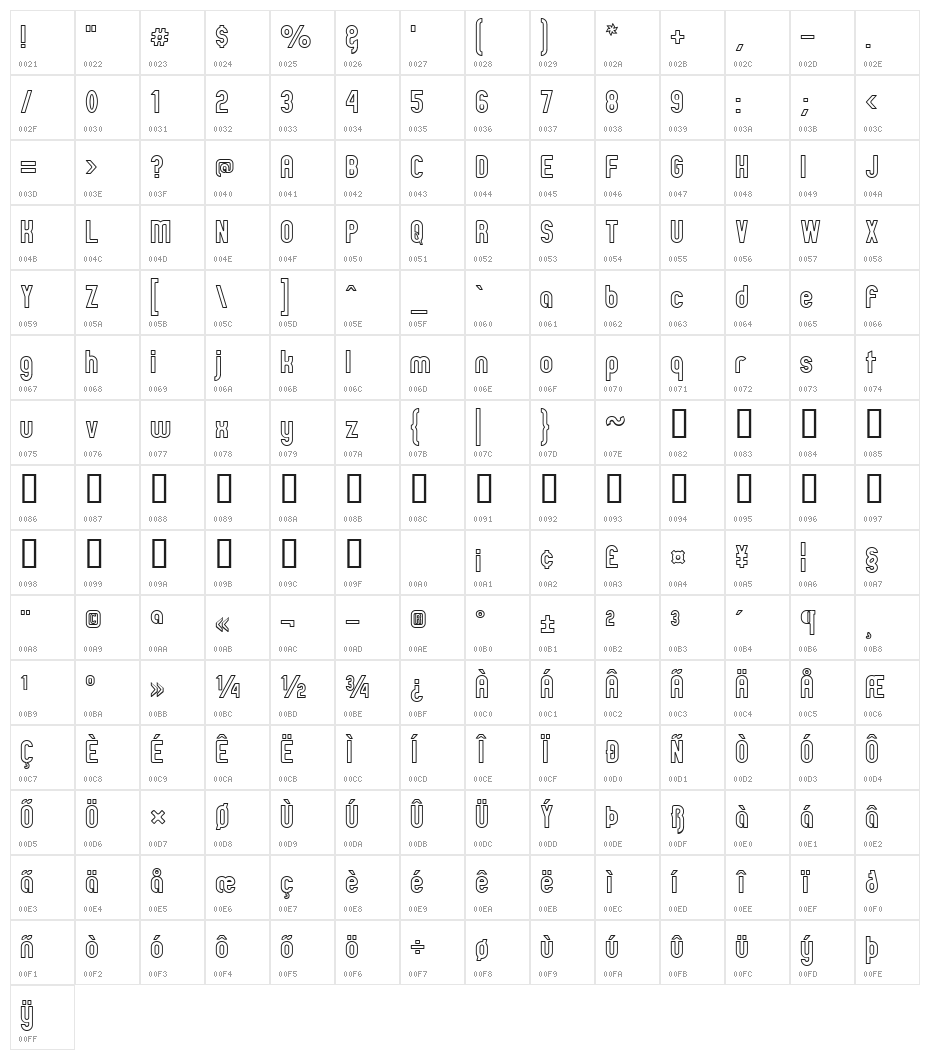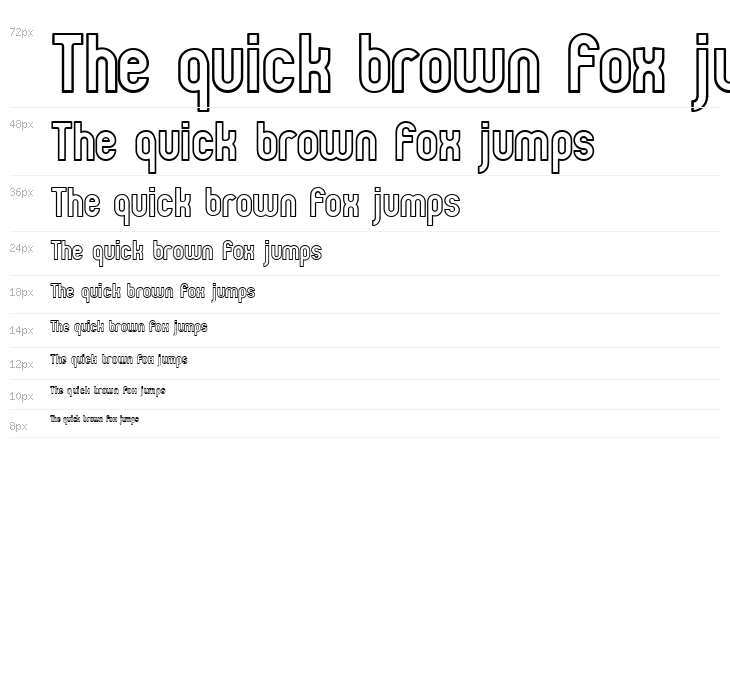
Zillah Modern Ouline Font
Zillah Modern Ouline Description
This font features a modern outline style, characterized by its bold, geometric shapes and clean lines. The uppercase and lowercase letters maintain a consistent width, creating a uniform appearance. The outline design gives it a unique, eye-catching look, making it suitable for various creative applications. The numerals and special characters follow the same stylistic approach, ensuring a cohesive visual experience. Its structured form and clear legibility make it versatile for both digital and print media.
| Proposed Projects | Ideal for branding, posters, headlines, and digital artwork where a modern and striking appearance is desired. |